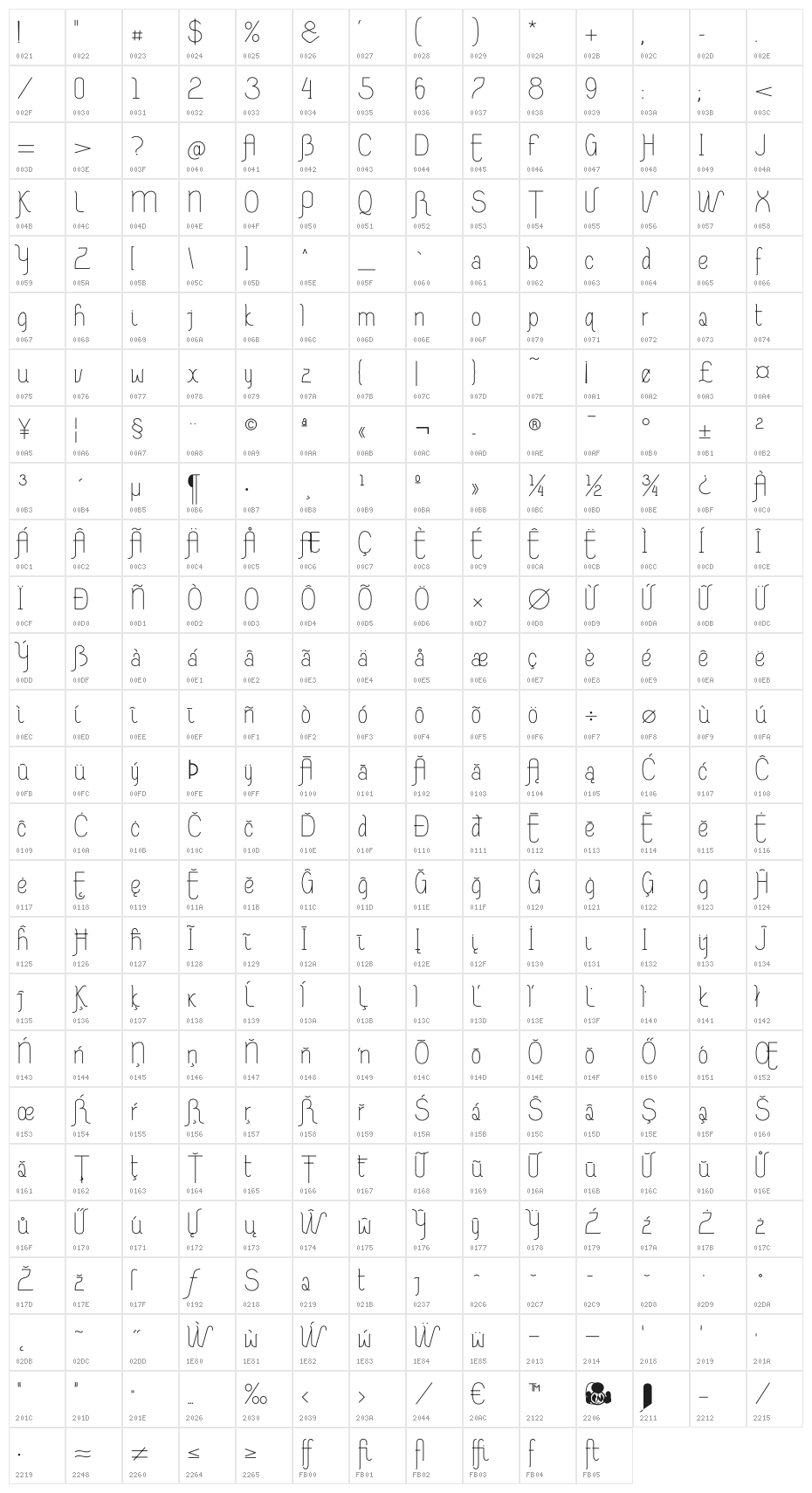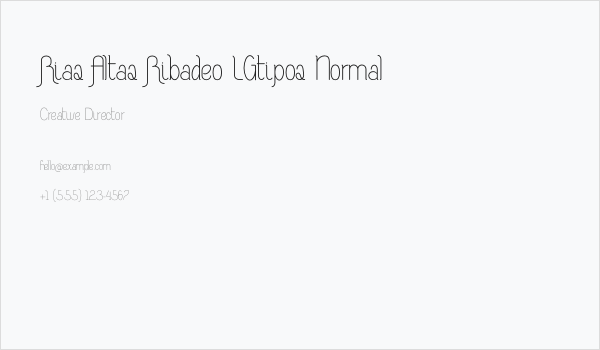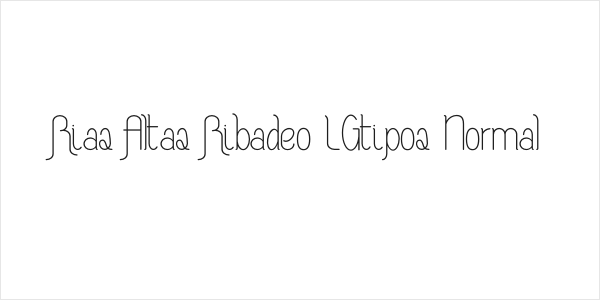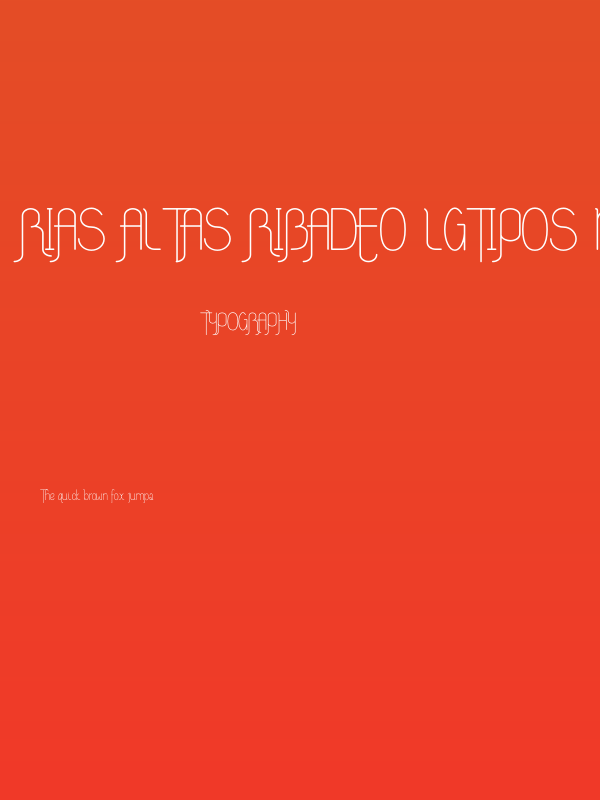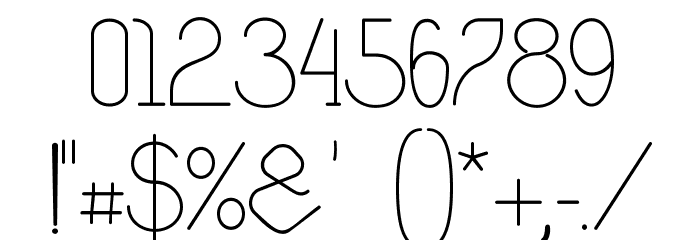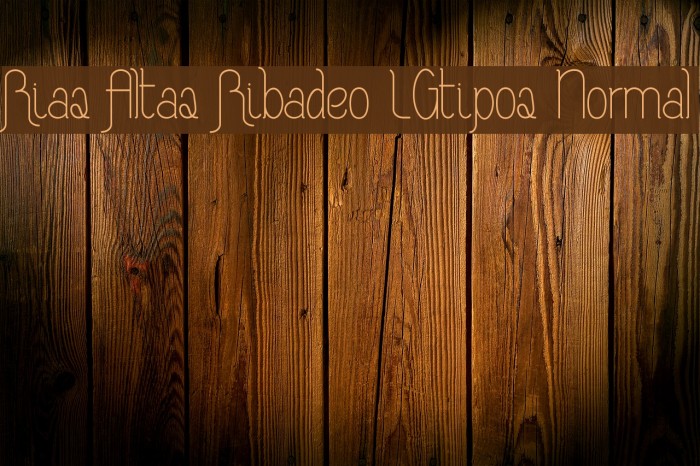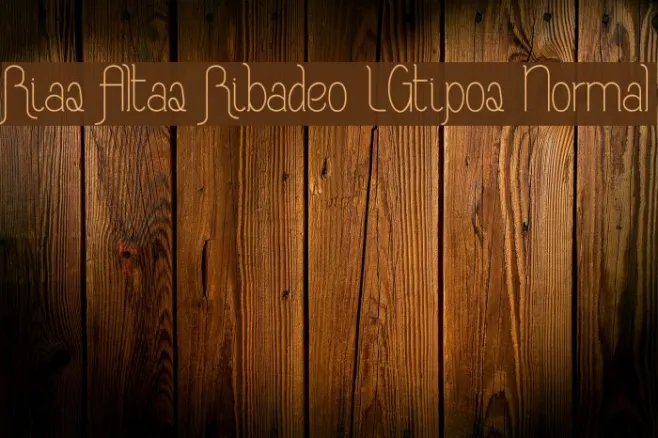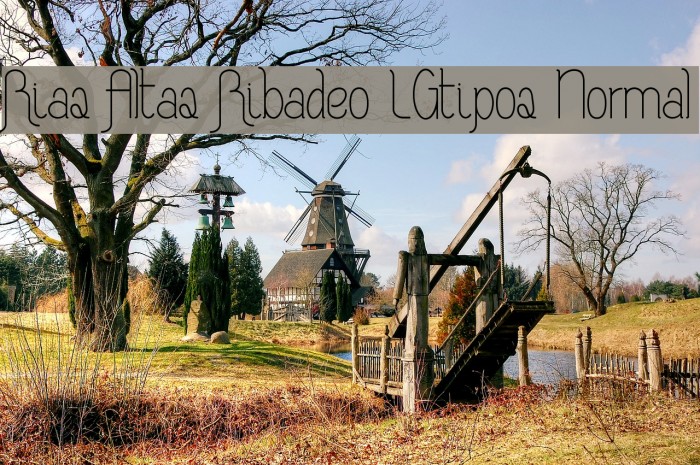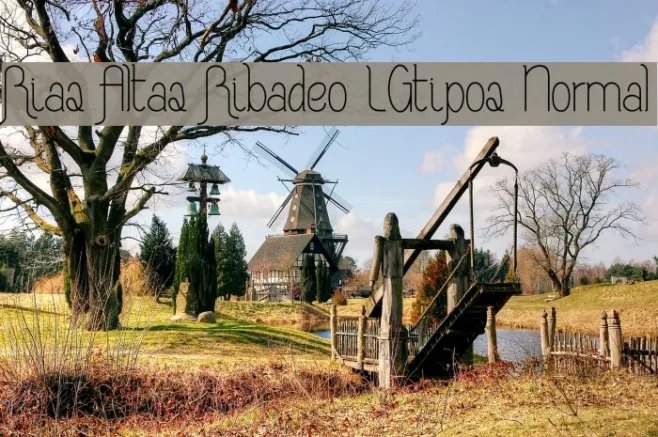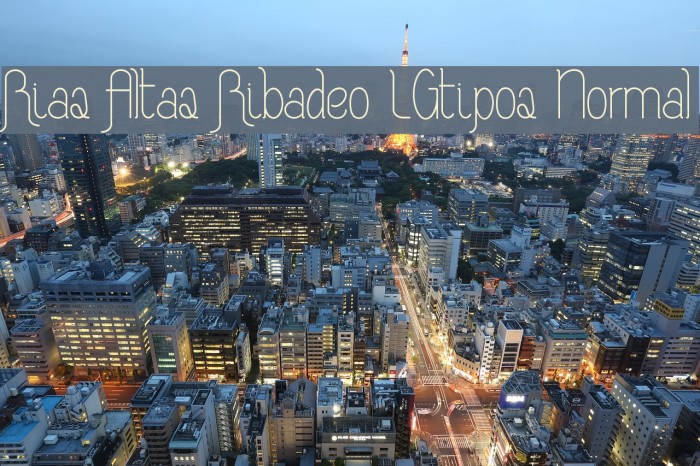
Rias Altas Ribadeo LGtipos Normal Font
Rias Altas Ribadeo LGtipos Normal Description
This font features a unique and modern design with elongated, thin strokes that give it a distinctive and airy appearance. The characters are crafted with a minimalist approach, emphasizing clean lines and a geometric structure. The uppercase letters are tall and narrow, while the lowercase letters maintain a consistent height, creating a harmonious balance. The numerals and special characters follow the same design principles, ensuring uniformity across the font. Its elegant and sophisticated style makes it suitable for contemporary design projects.
| Proposed Projects | Ideal for modern branding, fashion magazines, minimalist posters, and elegant invitations. |